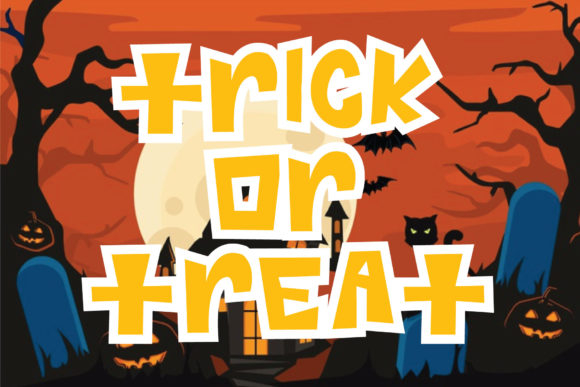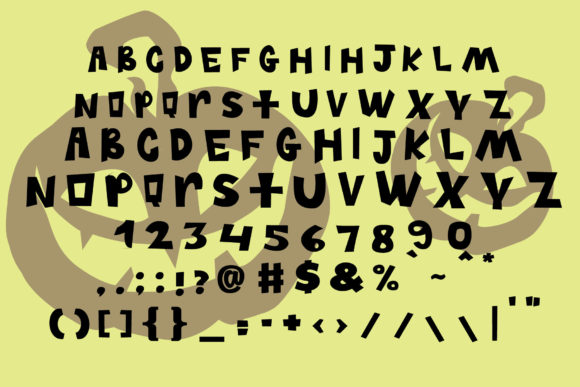
Crazy Halloween Font: The Perfect Addition to Your Spooky Designs
Are you looking for a font that will add a touch of whimsy and fun to your Halloween-themed designs? Look no further than the Crazy Halloween font! This adorable display font is perfect for creating spooky yet friendly designs that will delight both kids and adults. In this article, we’ll take a closer look at the Crazy Halloween font, its features, and how you can use it to create amazing designs for the spookiest time of the year.
What is Crazy Halloween Font?
Crazy Halloween is a cute and friendly display font designed specifically for Halloween-themed designs. Its playful and fun style makes it perfect for creating eye-catching titles, headings, and other design elements that will add a touch of spookiness to your projects. The font is versatile and can be used for a wide range of designs, from Halloween party invitations to pumpkin carvings, and even DIY crafts.
Features of Crazy Halloween Font
The Crazy Halloween font comes with a range of features that make it perfect for designers and crafters. Some of its key features include:
- Cute and Friendly Design: The font has a playful and fun design that is perfect for creating spooky yet friendly designs.
- Display Font: The font is designed as a display font, making it perfect for titles, headings, and other design elements.
- Easy to Read: Despite its playful design, the font is easy to read, making it perfect for creating designs that need to be both fun and functional.
- Versatile: The font can be used for a wide range of designs, from Halloween-themed designs to other projects that require a playful touch.
Design Ideas Using Crazy Halloween Font
The Crazy Halloween font can be used for a wide range of designs, including:
- Halloween Party Invitations: Create spooky yet friendly party invitations that will delight both kids and adults.
- Pumpkin Carvings: Use the font to create fun and playful pumpkin carvings that will add a touch of whimsy to your Halloween decor.
- DIY Crafts: Use the font to create fun and playful DIY crafts, such as Halloween-themed signs, banners, and other decorations.
- Social Media Graphics: Use the font to create spooky yet friendly social media graphics that will add a touch of Halloween fun to your social media feeds.
| Font Name | Crazy Halloween Font |
| Author | goodigital |
The Crazy Halloween font is a fun and playful display font that is perfect for creating spooky yet friendly designs for Halloween. Its cute and friendly design, versatility, and ease of use make it a must-have for designers and crafters. Whether you’re creating Halloween party invitations, pumpkin carvings, or DIY crafts, the Crazy Halloween font is sure to add a touch of whimsy and fun to your designs. So why wait? Download the Crazy Halloween font today and start creating your own spooky yet friendly designs!